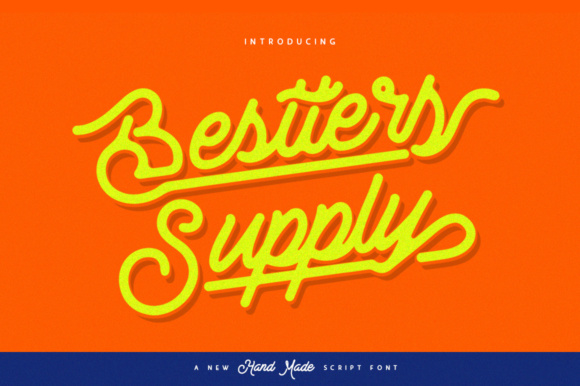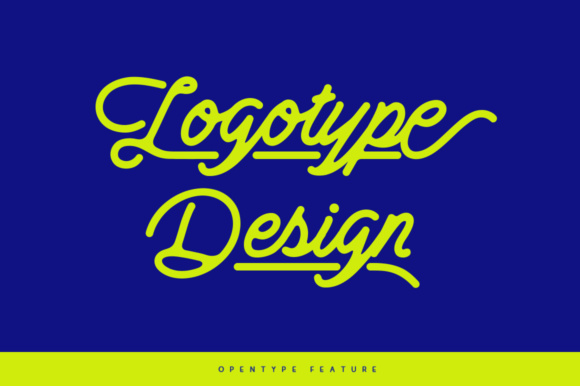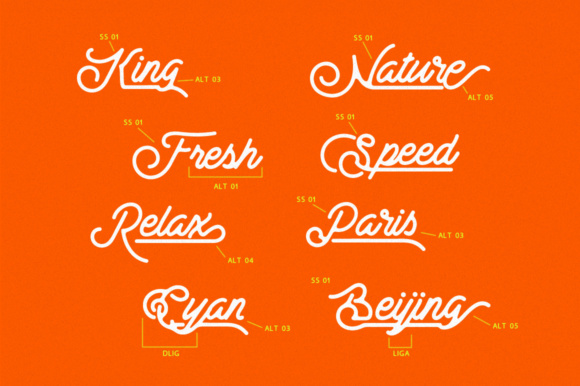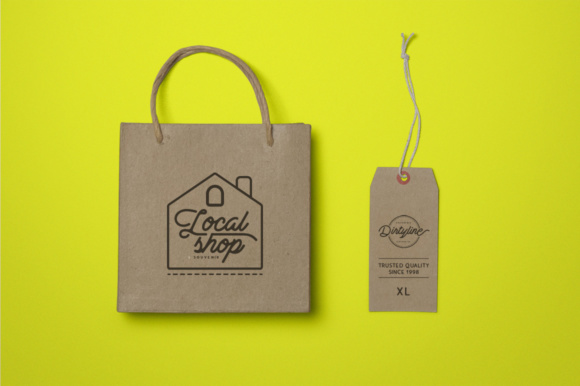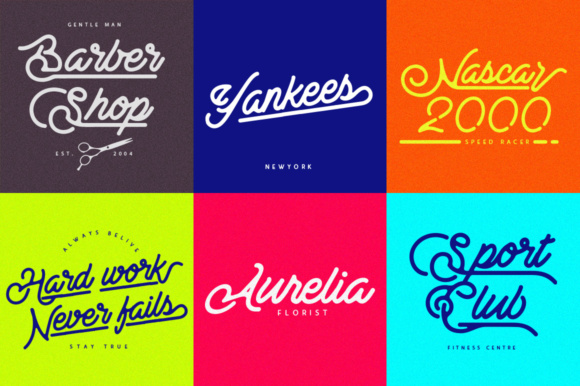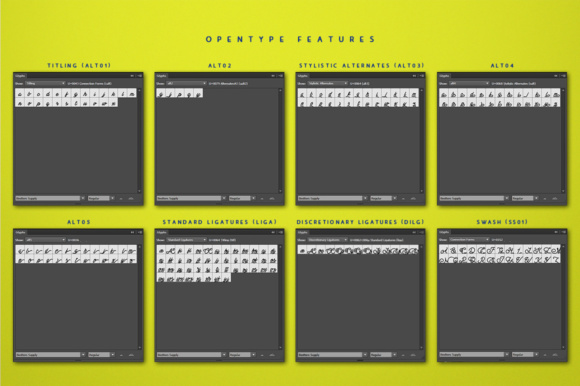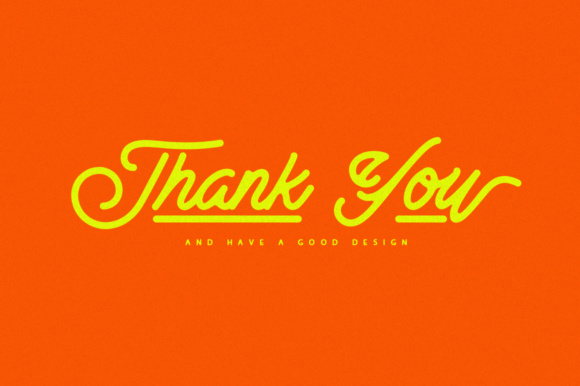
About Bestters Supply Font
Bestters Supply is a gorgeous retro inspired handmade script, perfect for crafting branded projects that need a classic yet fun appeal. This font works well in modern designs, but can amplify your more retro projects.